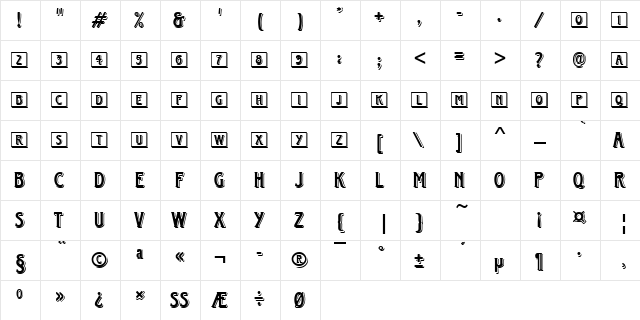
Horndon Becker Initials Regular
Design Context for Horndon Becker Initials Typeface
Horndon Becker Initials is a composed and adaptable typeface that performs quietly and consistently across a wide range of design contexts.